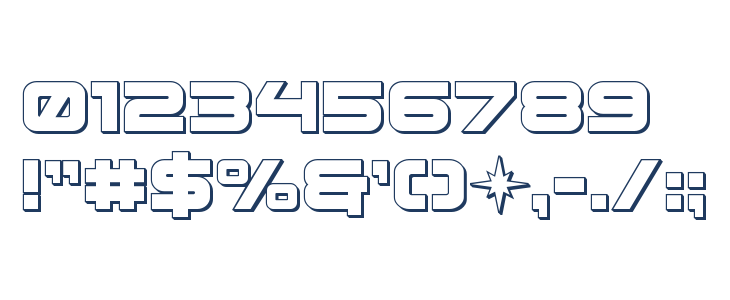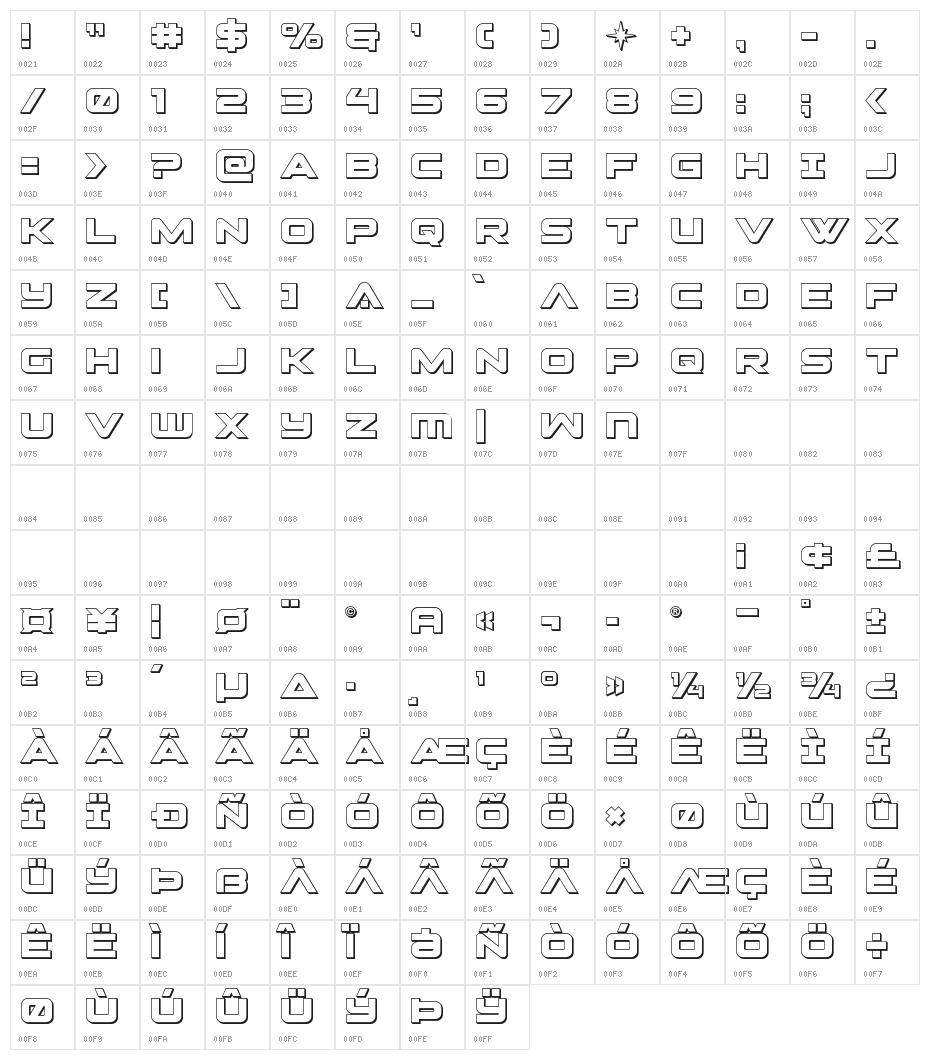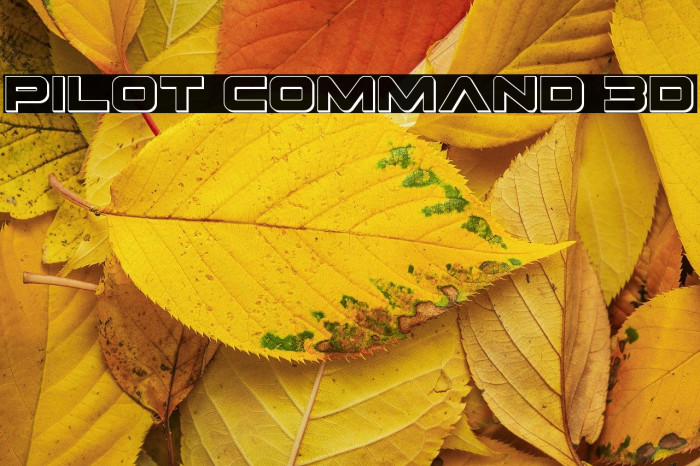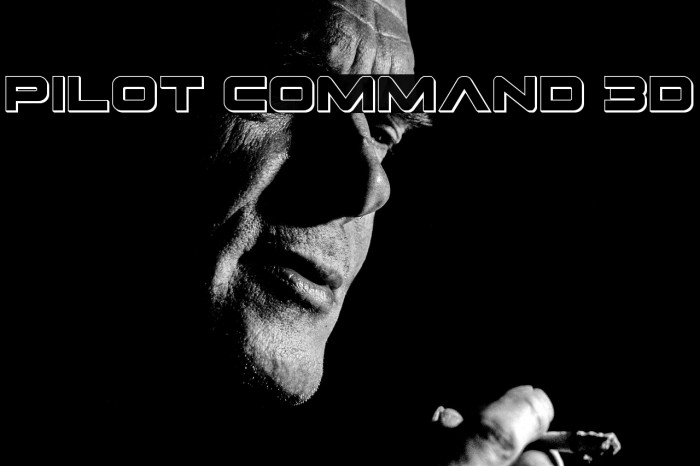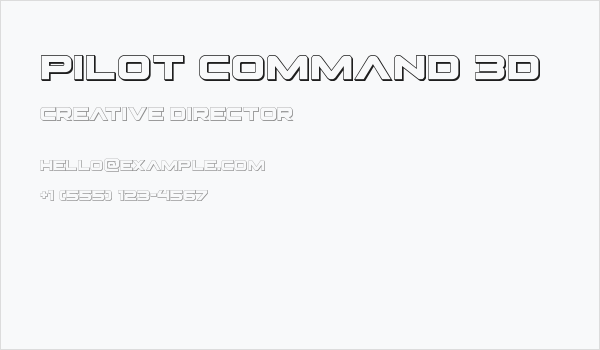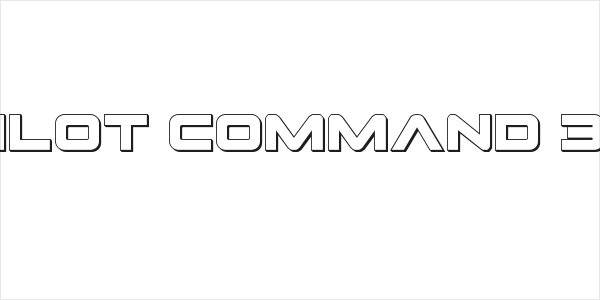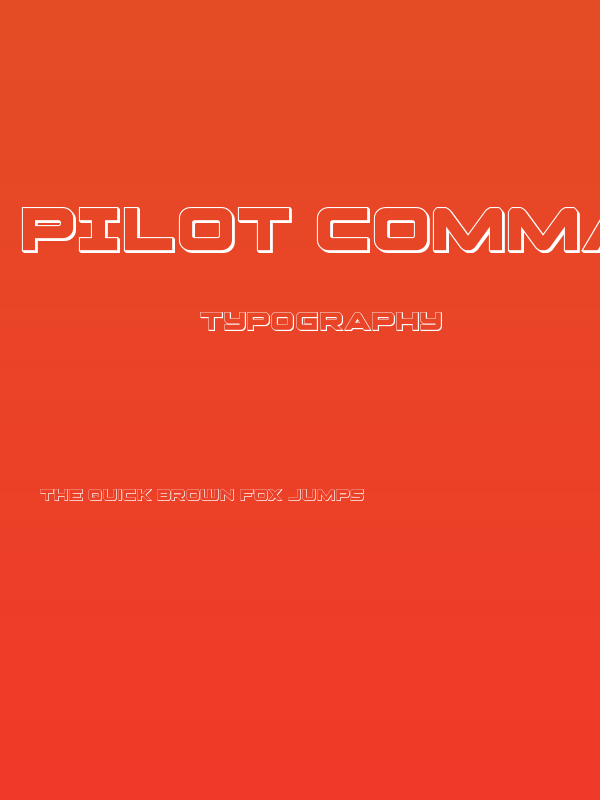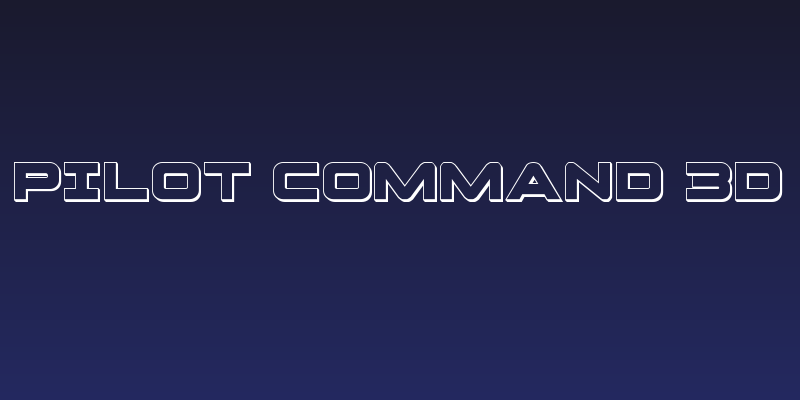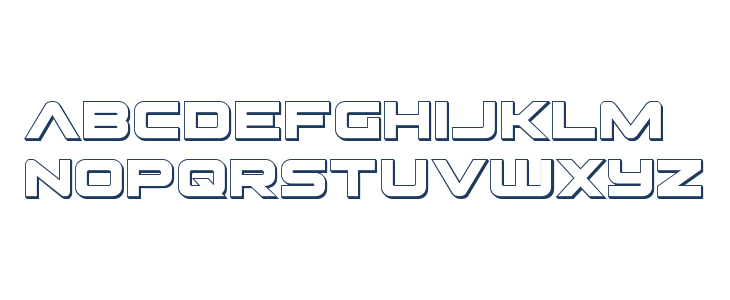
Pilot Command 3D Font
Pilot Command 3D Description
This font features a bold, three-dimensional design with a futuristic and technical appearance. The characters are outlined with a thick border, creating a strong visual impact. The geometric shapes and sharp angles give it a modern, industrial feel. The uppercase letters are uniform in height, while the numbers and special characters maintain the same bold style, ensuring consistency across all elements. The font's unique style makes it suitable for projects that require a standout, tech-inspired aesthetic.